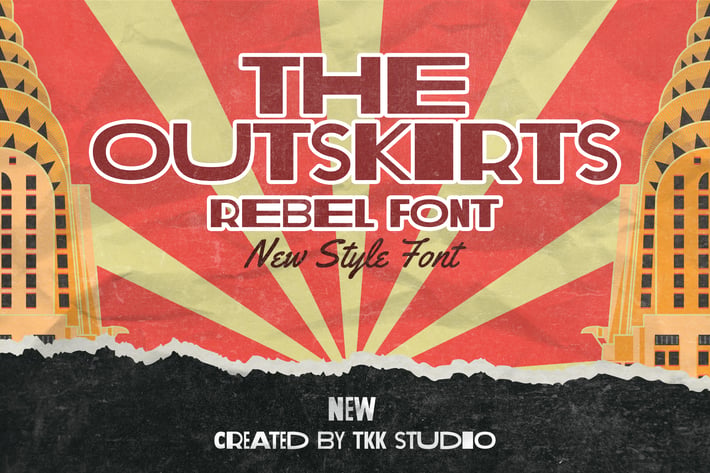
The Outskirts - Classic Vintage rebel font
Author Tokokoo
The Outskirts is a classic vintage font with a strong, cinematic attitude and bold uppercase structure. Inspired by retro propaganda posters and old-school title cards, it features sharp serifs, compact spacing, and high-impact letterforms. The font has an assertive, all-caps voice—ideal for gritty headlines, revolutionary branding, or anything that demands attention with a nostalgic punch.
Whether you’re designing a movie poster, protest flyer, vintage jazz ticket, or urban fashion campaign, The Outskirts delivers gritty charm and editorial strength in every glyph. It’s perfect for creators aiming to evoke the 1930s–60s era with a modern twist—ideal for rebel-themed events, classic cars, airshows, or political artwork. This is not just a typeface—it’s a statement.
Why Designers Choose The Outskirts
✅ High-Impact Serif Forms – Make titles unforgettable and commanding
✅ Retro-Editorial Look – Great for newspapers, posters, and protest art
✅ All-Caps Display Power – Ensures cohesion and strength in layout
✅ Timeless Aesthetic – Balances vintage charm with modern readability
Whether you’re a poster artist, indie filmmaker, or brand builder, The Outskirts delivers vintage drama and bold visibility every time. Don’t settle for soft—stand out with strong retro appeal. Download The Outskirts today and give your project the voice of a generation.